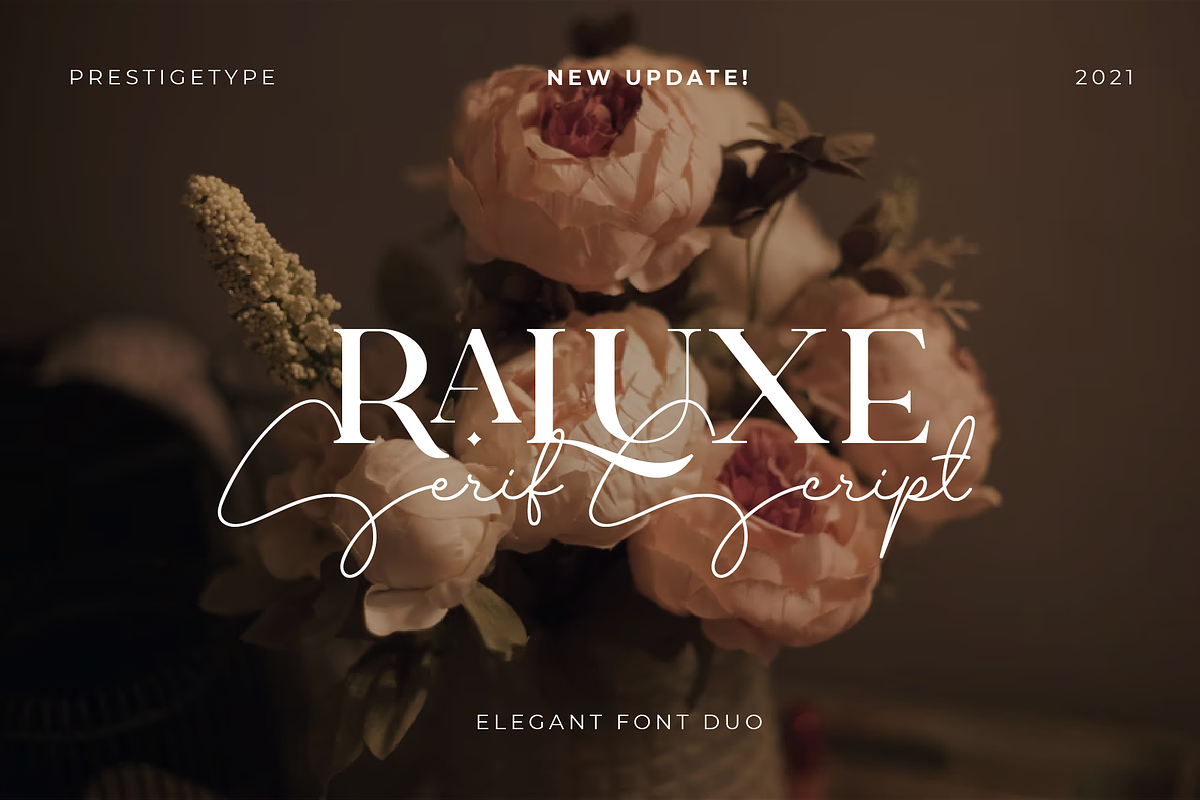
Raluxe Font Duo Free Download is a luxurious and versatile typeface combination that pairs a sophisticated serif with a graceful script. Designed for elegance and high-end appeal, this duo is perfect for logos, wedding invitations, branding, fashion magazines, and upscale product packaging.
Raluxe Font Duo Free Download allows you to mix structure and flair effortlessly—use the serif for clean headlines and the script for stylish accents or signatures. Together, they create a refined aesthetic ideal for both modern and classic design themes.
Whether you're working in print or digital, Raluxe offers flexibility and visual harmony. You’re welcome to test it in personal or demo projects, but a commercial license is required for professional use. Elevate your design work with this elegant and timeless font pairing that speaks the language of luxury.